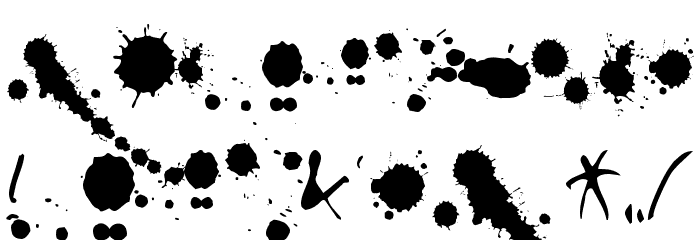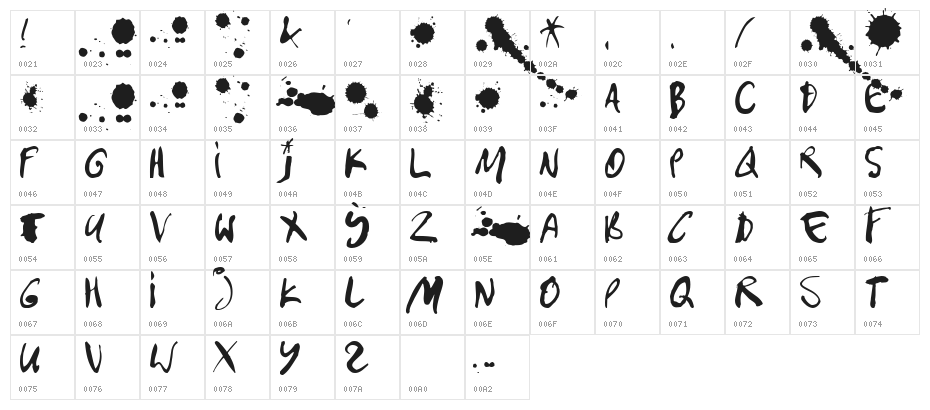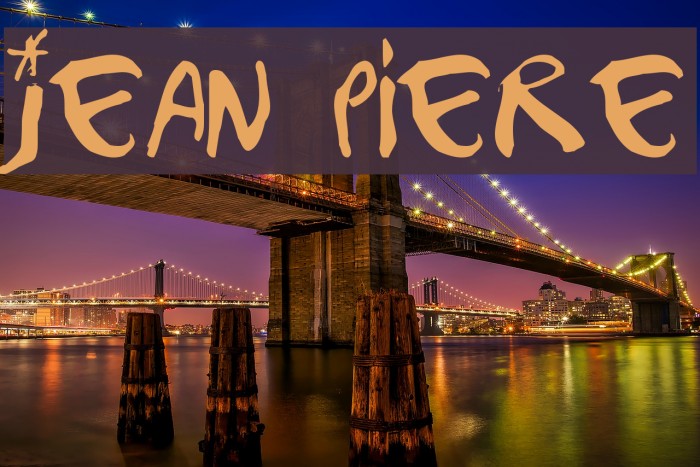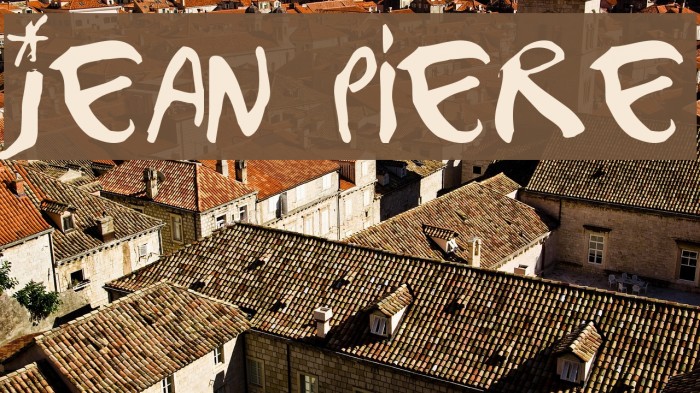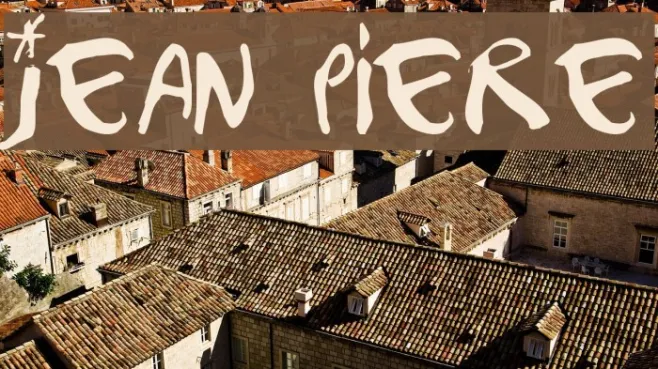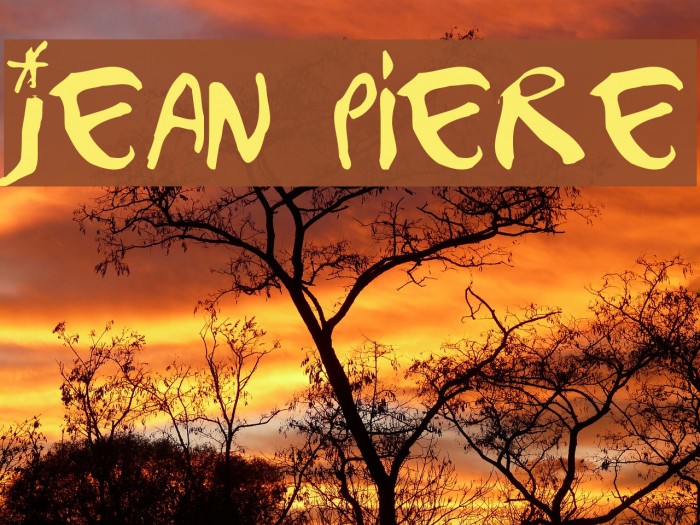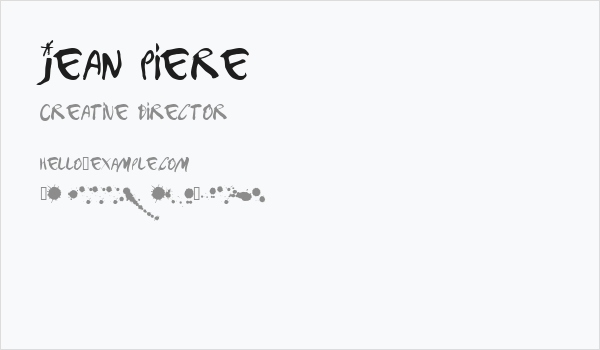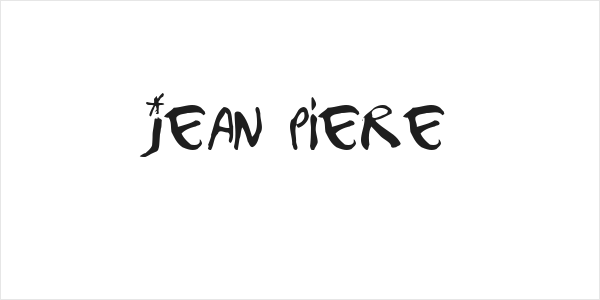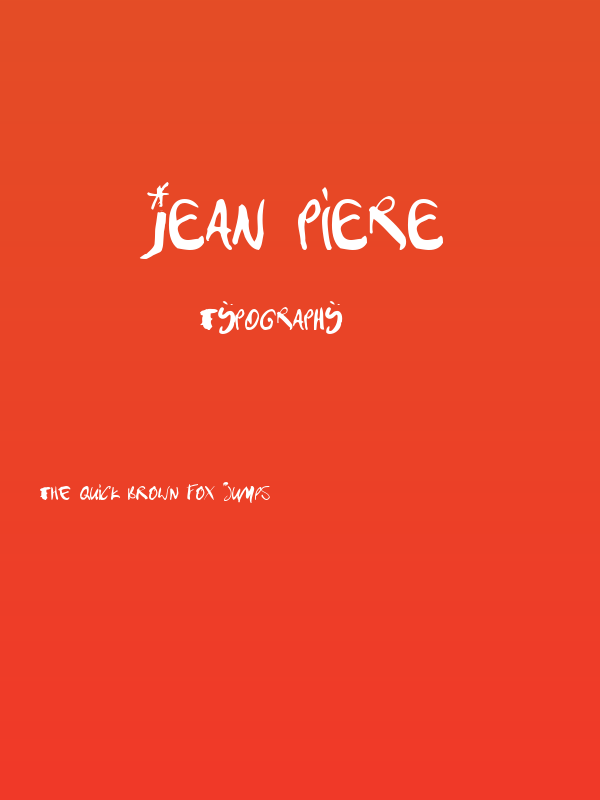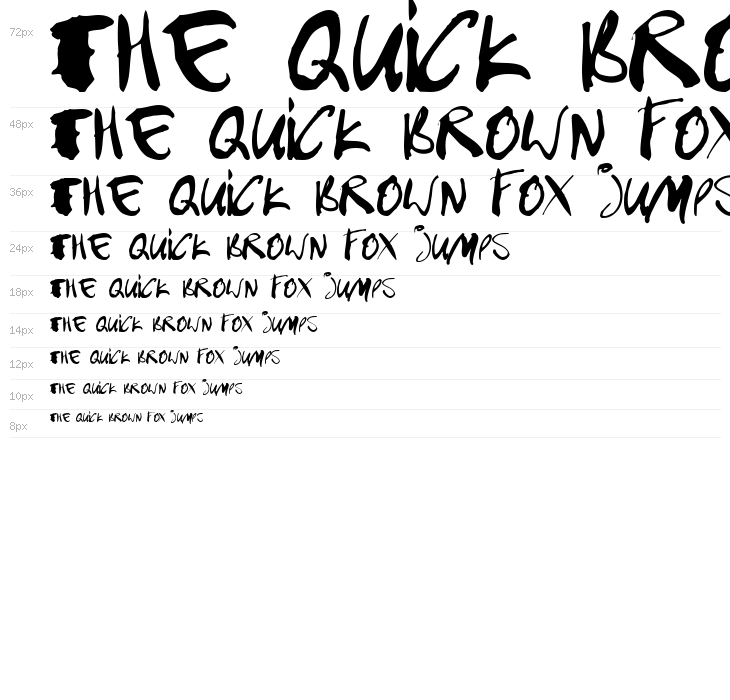
Jean Piere Font
Jean Piere Description
This font exudes a bold and expressive style, reminiscent of hand-painted lettering with a dynamic and artistic flair. The characters are irregular and organic, with varying stroke widths that create a sense of movement and energy. The uppercase and lowercase letters maintain a cohesive yet spontaneous appearance, while the numbers and special characters complement the overall design with their unique forms. This font's splatter and ink-like effects add to its raw and edgy aesthetic, making it stand out as a distinctive choice for creative projects.
| Use Case | Logos, Posters, Artistic projects |
| Proposed Projects | Ideal for artistic posters, album covers, graffiti-inspired designs, and creative branding. |